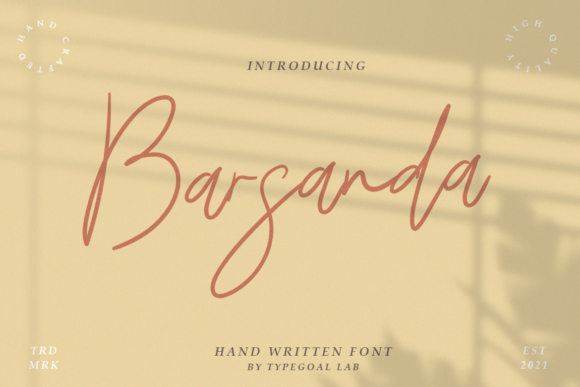
Immerse yourself in the enchanting world of Barsanda Script Font, where style and sophistication converge. This captivating script font exudes an aura of timeless elegance, meticulously designed to elevate your creations with a touch of modern flair.
Indulge in the graceful curves and delicate strokes of Barsanda Script, a font that speaks volumes without uttering a word. Its versatility knows no bounds, making it the ideal choice for a wide range of projects, from stylish invitations and breathtaking posters to eye-catching social media graphics.
Picture this: the bold strokes of Gangster Letters rendered in the exquisite finesse of Barsanda Script. Your designs will command attention, exuding an air of effortless cool and unwavering confidence. Each character is a masterpiece, infused with a touch of rebellion and a whole lot of charm.
But Barsanda Script's allure extends far beyond its aesthetic appeal. It's a font that empowers you to express your creativity with conviction. Whether you're a seasoned designer or just starting to explore the world of typography, Barsanda Script will guide your hand, enabling you to craft designs that leave a lasting impact.